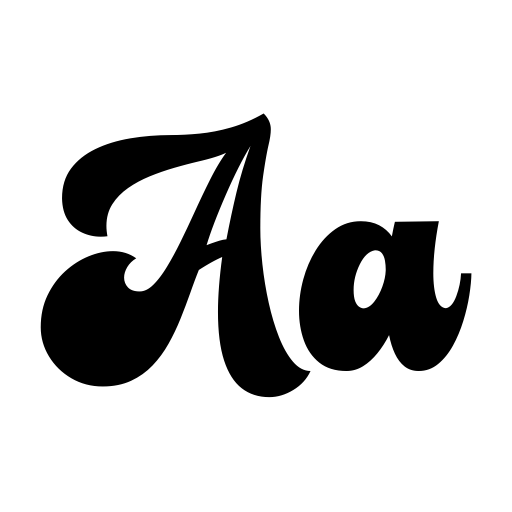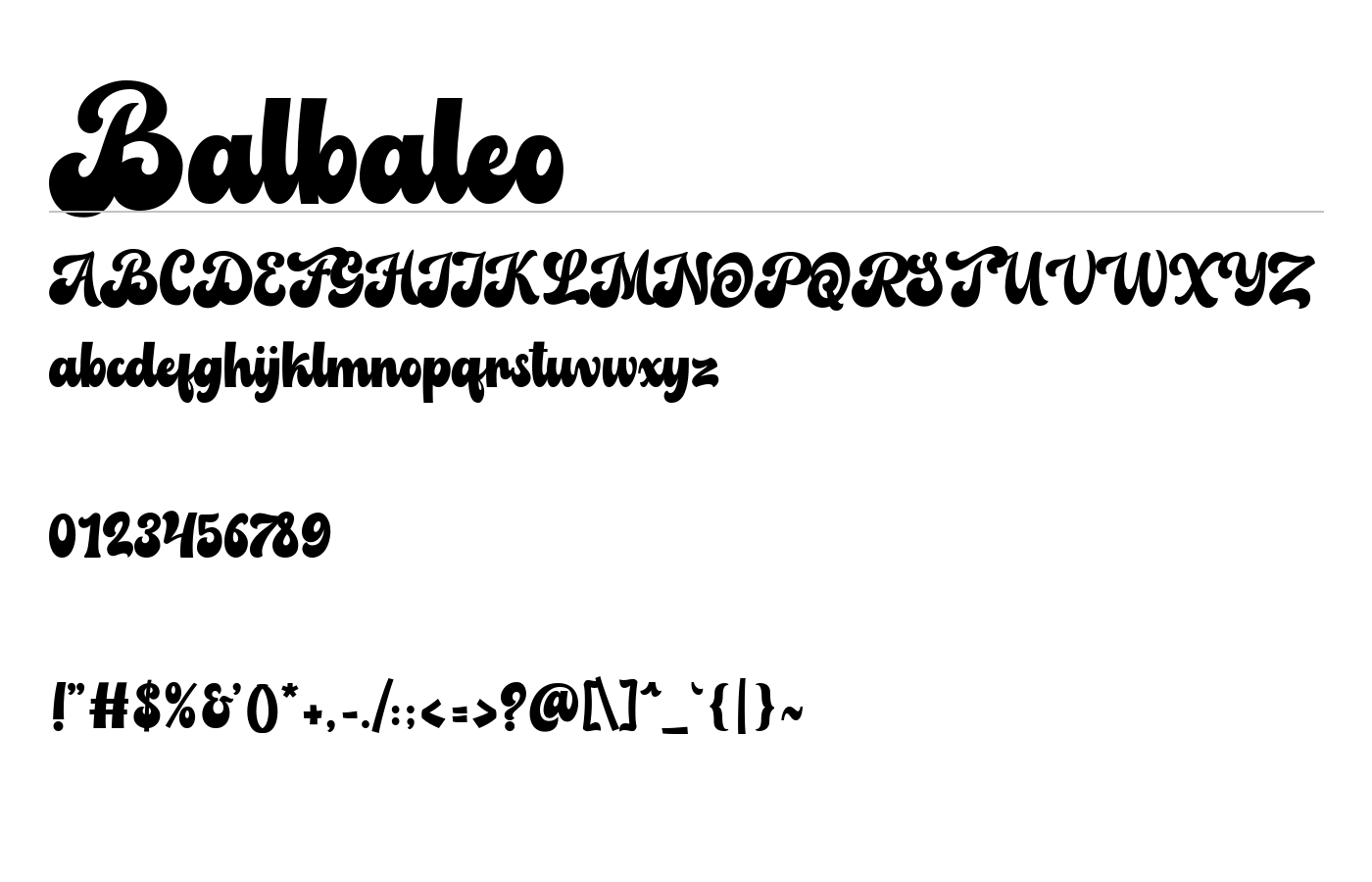
Balbaleo is a bold, playful script font with thick, rounded strokes and high contrast that give it a lively, retro-inspired feel. Its tightly spaced letterforms and unique swashes create a fun and dynamic personality, making it perfect for eye-catching headlines, logos, and branding that seeks a vibrant, energetic vibe. This font works especially well in creative and casual design projects where a friendly yet impactful style is desired.
Balbaleo Font
About Balbaleo Font